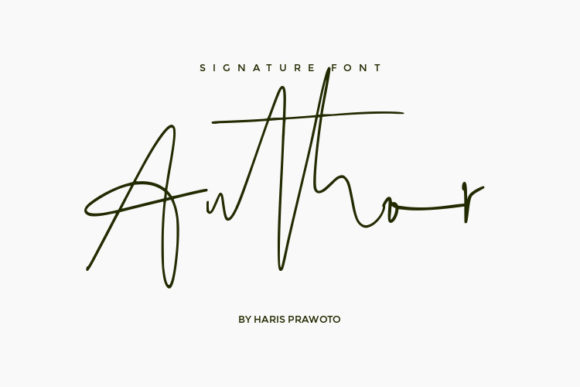
Behold, the enchanting Author Font, a breathtaking script font family that captures the essence of elegance and timelessness. With its irresistible charm and captivating aura, Author Font is the ultimate choice for discerning designers seeking to create logos, branding, and quotes that leave a lasting impression.
Step into a world of artistic brilliance, where each letter dances with grace and beauty, adding a touch of sophistication and allure to your designs. Author Font elevates your creations, transforming them into masterpieces that radiate an aura of timeless elegance.
Unlock the secrets of visual enchantment as you explore the depths of Author Font's character set. Discover a symphony of flowing lines, delicate curves, and mesmerizing swashes that harmoniously blend together, creating a visual symphony that captivates the senses.
Feel the pulse of creativity surge through your veins as you unleash the power of Author Font. Whether you're crafting logos that exude authority and style, branding that radiates professionalism and charisma, or quotes that resonate with heartfelt emotion, Author Font is your muse, guiding you towards design excellence.
Immerse yourself in a realm of endless possibilities, where Author Font becomes your trusted companion in the pursuit of visual storytelling. Its versatility knows no bounds, adapting seamlessly to a myriad of design aesthetics. From the vintage charm of retro designs to the sleek modernity of contemporary creations, Author Font effortlessly complements your artistic vision.
Dare to embrace the extraordinary and embark on a journey of design brilliance with Author Font. Let your imagination soar as you harness the power of this remarkable font, transforming your designs into captivating works of art that ignite hearts and inspire souls.